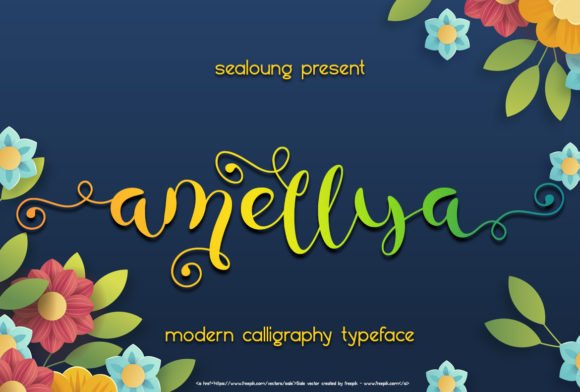
Discover the Elegance of Amellya Font
As a designer, there’s nothing quite like the thrill of stumbling upon a font that perfectly captures the essence of your creative vision. It’s that magical moment when all the pieces come together, and you know you’ve found something special. For me, that moment came when I discovered the Amellya Font – a delicate and elegant handwritten font that has become an instant favorite.
The Amellya Font is more than just a stylish addition to your design toolkit; it’s a versatile masterpiece that can elevate any project from ordinary to extraordinary. With its distinct and well-rounded letters, this font is perfect for creating stunning headlines, elegant invitations, or even beautiful quotes that will leave a lasting impression.
Whether you’re a seasoned designer or just starting out, the Amellya Font is a valuable addition to your arsenal. Its versatility and timeless elegance make it a go-to choice for any project that requires a touch of sophistication and style.
Amellya Font Key Features
- Font Size: Each font weight is available in 4 font sizes: 8pt, 9pt, 10pt, and 12pt.
- Resolution: Optimized for 300 DPI (dots per inch) and 600 DPI resolutions.
- Unique Characteristics: Amellya Font features a unique, hand-drawn design with intricate details and elegant lines, making it suitable for various design applications.
- Language Support: Supports multiple languages, including Latin, Cyrillic, and Greek alphabets.
- Font Weight: Available in 6 font weights, ranging from Light to Bold, to cater to various design needs.
Amellya Font Review
Overall, I found Amellya to be a solid, modern font with a lot of potential. Here are some of its strengths:
- ✨ Elegant and refined aesthetic, perfect for high-end designs
- ✨ Beautifully crafted letterforms with subtle flair
- ✨ Versatile and suitable for a wide range of applications
- ✨ Excellent for use in digital and print media
However, like any font, Amellya has its limitations:
- ⚠️ The font may not be suitable for use in very small sizes, as the letterforms can become difficult to read
- ⚠️ The font’s high level of detail may make it challenging to use in designs where simplicity is key
- ⚠️ Limited language support, which may be a concern for designers working on multilingual projects
Overall, I would recommend Amellya to designers looking for a sophisticated and modern font for their projects. While it may not be perfect for every use case, its strengths far outweigh its limitations.
Getting the Most Out of Amellya Font
For the best results, use Amellya Font in combination with bold or italic styles to add emphasis.
Use Amellya Font for titles, headings, and other important text elements to create a professional look.
Amellya Font is ideal for:
Brand identity and logos
Marketing materials and brochures
Presentations and reports
Web design and development
Alternatives to Amellya Font
Great Vibes is a modern, elegant script font that is perfect for creating a sophisticated and stylish design. It has a similar feel to Amellya Font but with a more refined and polished look. Great Vibes is ideal for use in branding, packaging, and advertising materials where a touch of elegance is desired.
Lato is a clean and modern sans-serif font that is highly legible and versatile. While it lacks the script style of Amellya Font, Lato is a great option for designers who need a font that is easy to read and can be used in a wide range of applications, from body text to headings.
Crimson Text is a serif font that is designed to be highly readable and elegant. It has a similar classic feel to Amellya Font but with a more modern twist. Crimson Text is ideal for use in publishing, education, and corporate materials where a professional and sophisticated look is desired.
What is the recommended font size for optimal readability with the Amellya Font?
The recommended font size for optimal readability with the Amellya Font is between 12 and 14 points for body text. For headings and titles, use font sizes between 18 and 24 points. This will ensure clear readability and effective communication of your message.